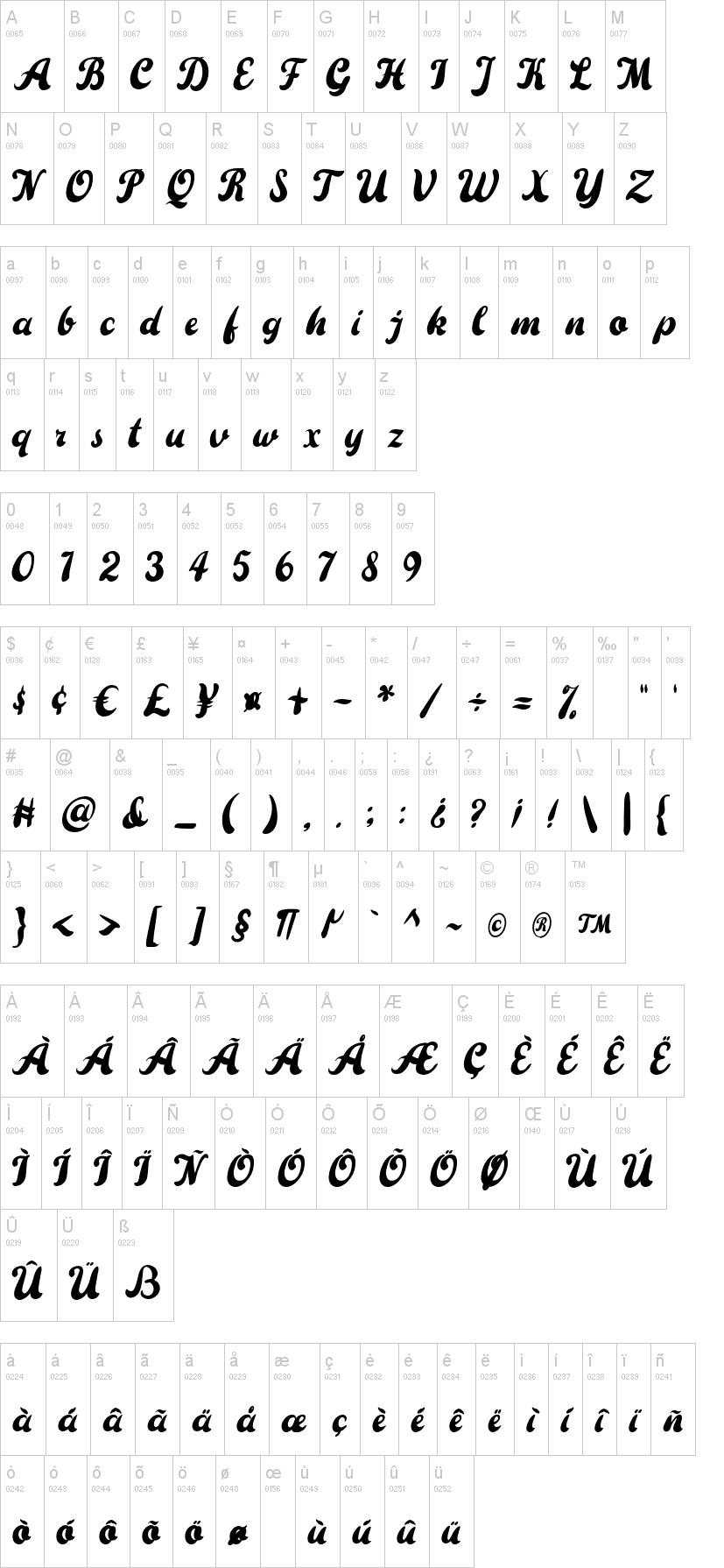
Note of the authorHello... I want to introduce The Poisoned Heart Font,
This font suitable for your design project especially for branding packaging, lettering and others.